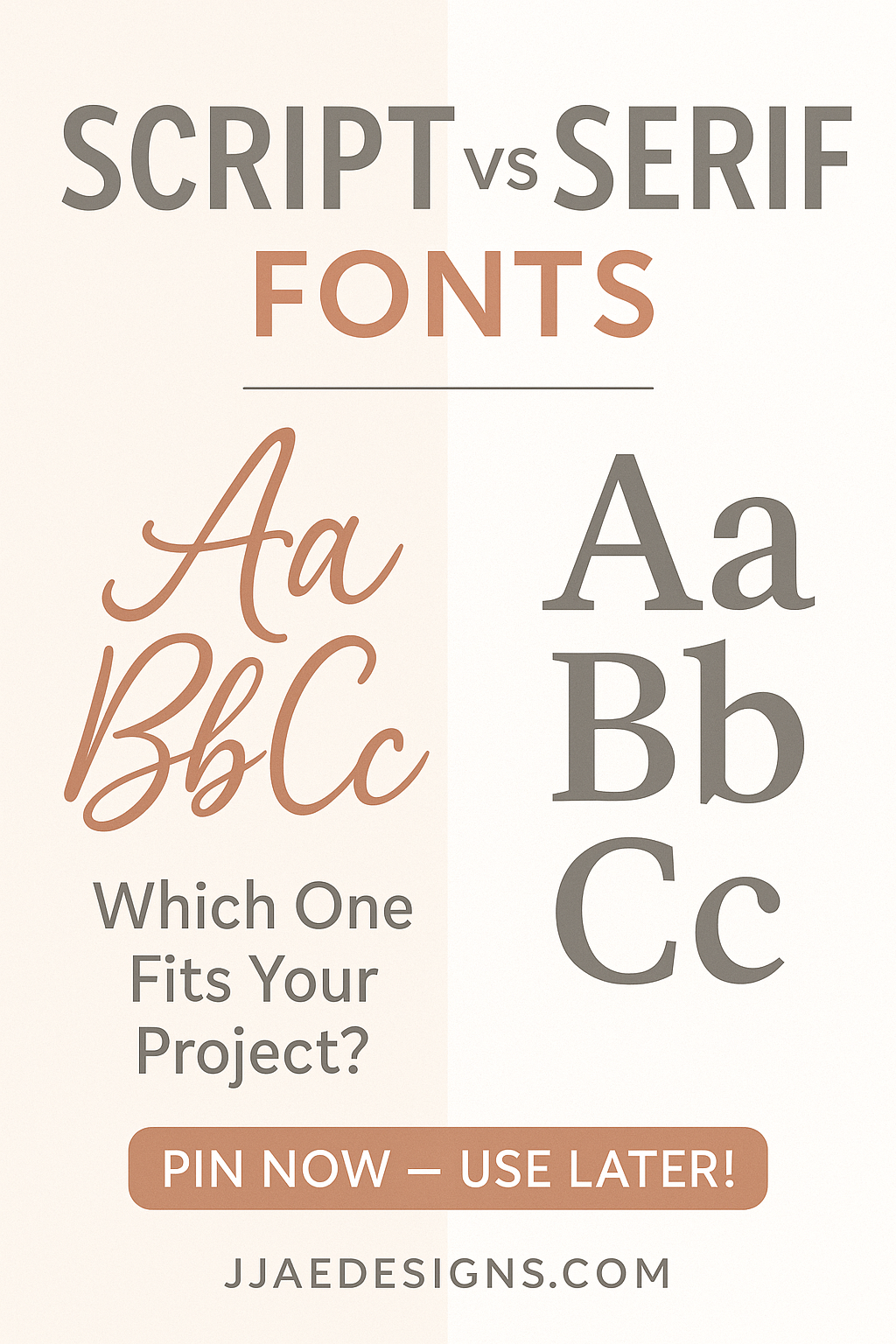
Script vs Serif: Which Font Is Right for Your Project?
Fonts are like shoes—super cute on someone else, but maybe not the vibe for your outfit.
The same goes for script vs serif fonts. Both are gorgeous, useful, and powerful—but they send completely different messages. So how do you choose the right one for your project?
Script Fonts: The Handwritten Heart of Design
Script fonts are the life of the party. They’re flirty, fancy, and full of personality. Some look like modern calligraphy, others feel like quick, casual handwriting—and either way, they bring a personal, emotional vibe to anything they touch.
Script Fonts Are Perfect For:
- Wedding invitations
- Greeting cards
- Planner stickers
- Instagram graphics
- Cricut crafts (with smooth curves for clean cuts!)
What They Say:
“Hey bestie! I made this with love.”
“Soft. Sweet. Sentimental.”
“A little fancy, a little fun.”
JJAEDesign Font examples: Blushberry, Sweet Sugar Script, Marshmallow Script
Serif Fonts: Classy, Timeless, Always On Point
Serif fonts have those little “feet” at the ends of their letters (aka serifs), and they instantly give off a classic, trustworthy, and editorial feel. They’re perfect when you want your message to look established, elegant, or like it belongs in a magazine.
Serif Fonts Are Perfect For:
- Logos and branding
- Wedding menus or programs
- Blogs and long-form text
- Printables or ebooks
- Luxe packaging
What They Say:
“Professional, but with style.”
“Bold. Refined. Confident.”
“I know what I’m doing—and I look good doing it.”
🖋️ JJAEDesigns Font examples: Vera Serif, Biscuit Slab, Cedar Market
🤔 So… Script or Serif?
Ask yourself:
- Do I want this to feel personal and soft? → Go Script
- Do I want this to feel structured and elegant? → Go Serif
- Do I want a little of both? → Try mixing them for a killer combo (think script headline + serif body text = chef’s kiss)
💡 Pro Tip: Use Fonts That Fit the Feel
The most aesthetic designs aren’t just about color and layout—they’re about using fonts that match the message. When your font feels right, your project just ✨ clicks ✨.